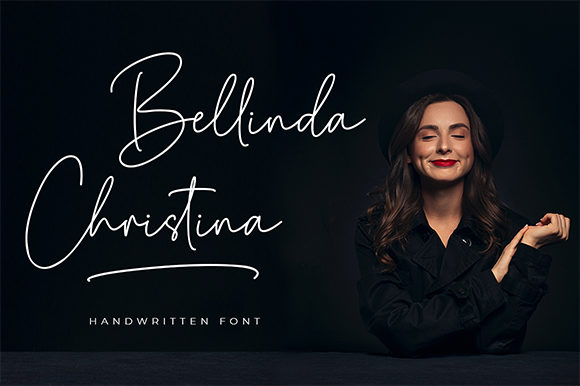
Introducing Bellinda Christina: The Quintessential Script Font Family for Your Creative Endeavors.
In the realm of digital artistry, where words dance and visuals intertwine, there exists a font family that stands apart, a symphony of elegance and charm that will transform your creative projects into masterpieces. Enter Bellinda Christina, a script font family inspired by the timeless allure of classic typography, ready to infuse your designs with a touch of sophistication and individuality.
Crafted with meticulous attention to detail by the artisans at Bluestype Studio, Bellinda Christina is not just a collection of letters; it's an invitation to embark on a journey of artistic expression. Whether you're a seasoned graphic designer seeking to elevate your work or a passionate hobbyist eager to add a personal touch to your projects, Bellinda Christina is your perfect companion.
With its graceful curves and flowing lines, this handwritten font family adds a touch of elegance to any design. Its carefully crafted characters exude a sense of authenticity and artistry, evoking the charm of handwritten notes and the timeless beauty of calligraphy.
Unleash your creativity and let Bellinda Christina transform your words into works of art. Whether you're designing logos, creating social media graphics, crafting invitations, or embarking on DIY projects, this font family will add a touch of magic to every endeavor.